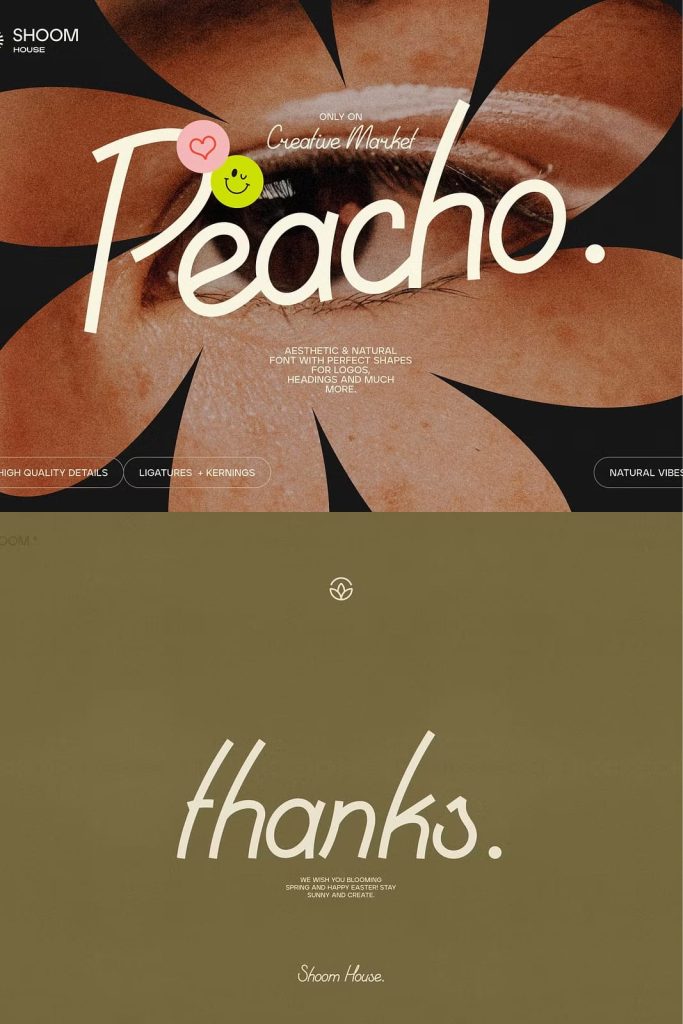
It’s a font with chilly, smooth and natural forms. Peacho’s elements are built with balance of perfection, casuality and creativity of details.
This aspect let designers apply font to the large variety of visual areas and bring some fresh + unique aesthetics to identity (yeah, Peacho looks really great for logos!), social media design, ad and corporate materials, website interfaces and to any other amazing surrounding things!